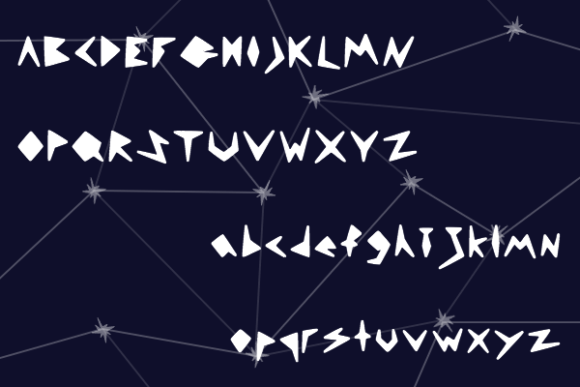
Introduction to Metal Stars Font
Have you ever been stuck in a creative rut, staring at a blank canvas with no inspiration in sight? That was me last week, until I stumbled upon the Metal Stars Font. Its energetic and angular design sparked a wave of excitement, and I knew I had to dive deeper. This font is more than just a design resource – it’s a key to unlocking your creative potential.
As a designer, you’re always on the lookout for high-quality fonts that can elevate your projects. The Metal Stars Font delivers, with its sleek lines and modern aesthetic making it perfect for a wide range of creative endeavors. Whether you’re working on a design project with a transparent background or need a font to add some edge to your next logo, the Metal Stars Font is a valuable addition to your design arsenal. And the best part? It’s available for free download, making it accessible to designers of all levels.
Key Features of Metal Stars Font
- High-quality vector design with transparent background, perfect for creative projects and designs.
- Includes a range of scalable designs, with each element meticulously crafted to ensure crisp and clear details at any resolution.
- Designed to be versatile, suitable for a variety of creative projects, from posters and flyers to digital art and more.
Honest Review: Metal Stars Font
I recently had the chance to experiment with the Metal Stars Font, and I must say it’s a great addition to any designer’s toolkit. ✨ The font is perfect for creative projects that require a touch of edginess, and it’s available for free download, making it a fantastic design resource.
One of the standout features of this font is its versatility. It can be used in a variety of contexts, from logos and branding to editorial design and even web design. The transparent background option is also a big plus, allowing designers to easily layer the font over different backgrounds and images.
While Metal Stars Font is an excellent choice for many designers, there are some limitations to consider: ⚠️
- Some users may find the font’s edgy style too bold or overwhelming
- The font may not be suitable for projects that require a more conservative or traditional aesthetic
Overall, I’m impressed with Metal Stars Font and would definitely recommend it to designers looking for a high-quality, free design resource for their creative projects.
The Metal Stars Font is a free download design resource ideal for creative projects that require a touch of elegance and sophistication. With its high-quality, transparent background, this font is perfect for adding a unique twist to your designs.
To get the most out of the Metal Stars Font, use it in bold, large font sizes to make a statement. You can also combine it with other fonts to create a unique, eye-catching design.
The Metal Stars Font is perfect for:
- Designing business cards and brochures.
- Creating social media graphics and posters.
- Adding a touch of elegance to wedding invitations and event materials.
Yes, the Metal Stars Font is fully editable, and you can modify it to suit your design needs. You can use design software like Adobe Illustrator or Photoshop to customize the font, change its color, and add effects. However, please note that any modifications made to the font may affect its original design and style.